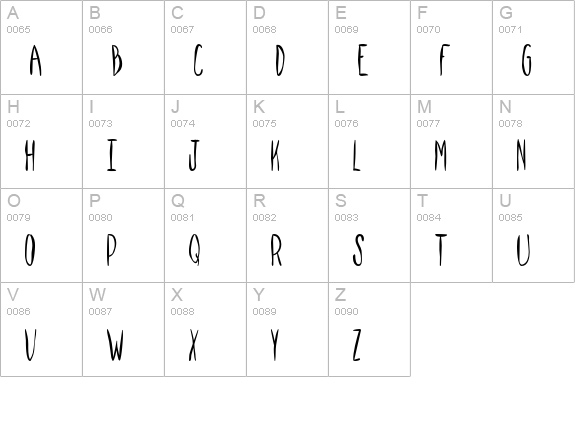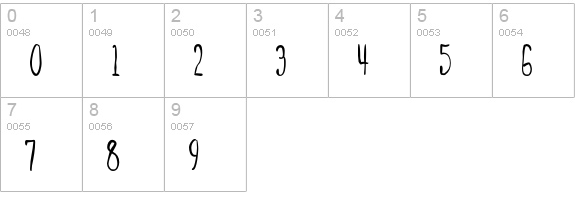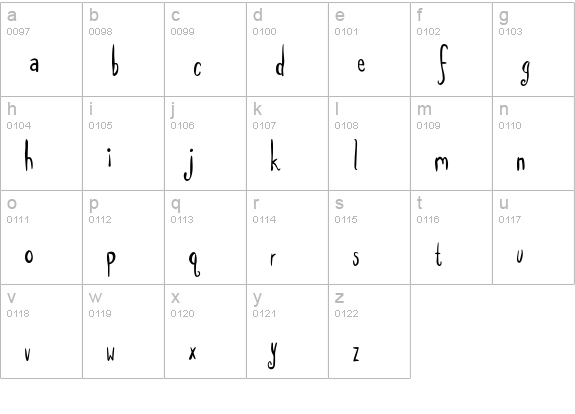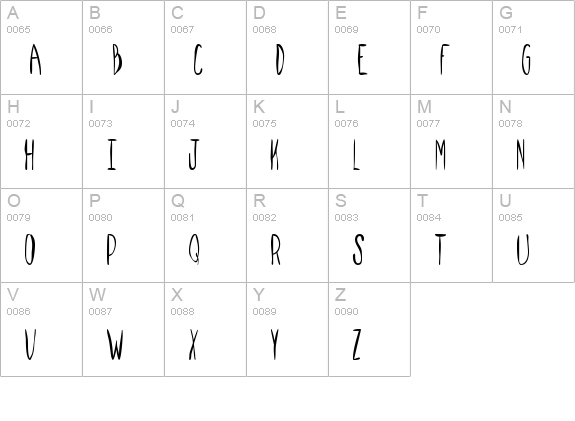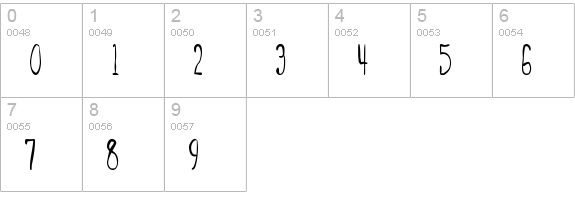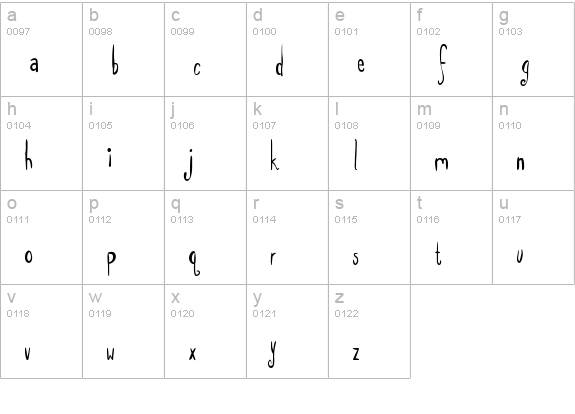
SpillMilkRegular Font Details
SpillMilkRegular font is a delightful typeface that exudes a playful and youthful vibe. Its quirky and fluid letterforms make it a perfect choice for projects that require a touch of whimsy and lightheartedness. The SpillMilkRegular font is characterized by its unique and irregular brush strokes, giving it an organic and handcrafted feel. Each letter seems to spill onto the page, creating a sense of movement and energy. This font is not only visually appealing but also highly legible, making it suitable for various design purposes. It works well for headlines, logos, packaging, posters, and more, adding a cheerful and vibrant touch to any project. One of the best things about SpillMilkRegular font is that it is freely available to download at FontsMarket.com. This means that you can easily access and use this font in your designs without any cost. Whether you are a professional designer or a hobbyist, having access to high-quality fonts like SpillMilkRegular can greatly enhance your creative projects. So, why wait? Download SpillMilkRegular font today from FontsMarket.com and let your imagination run wild with its playful and free-spirited charm.